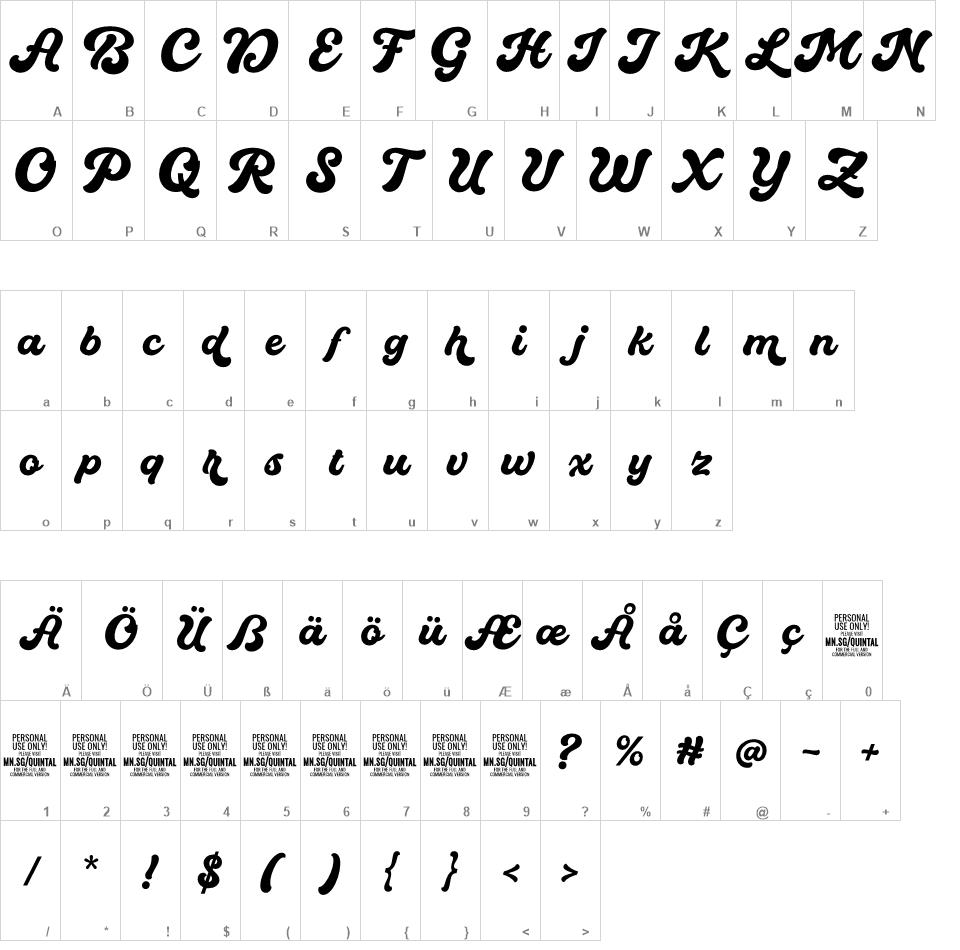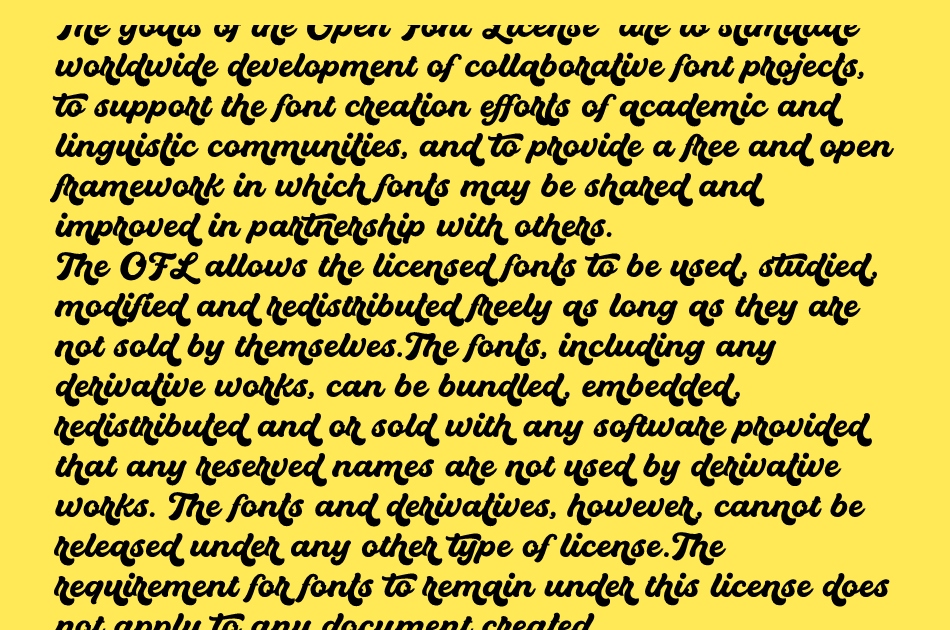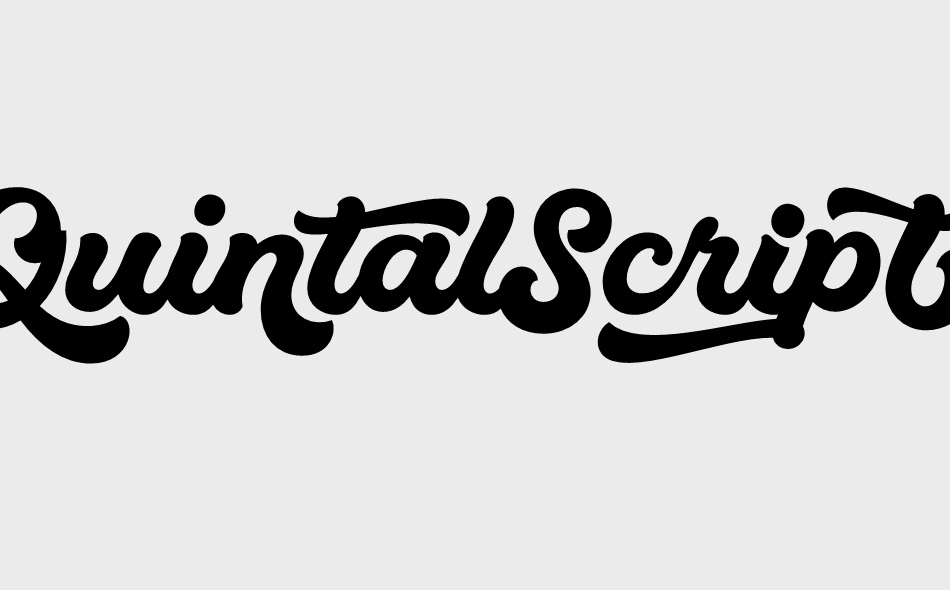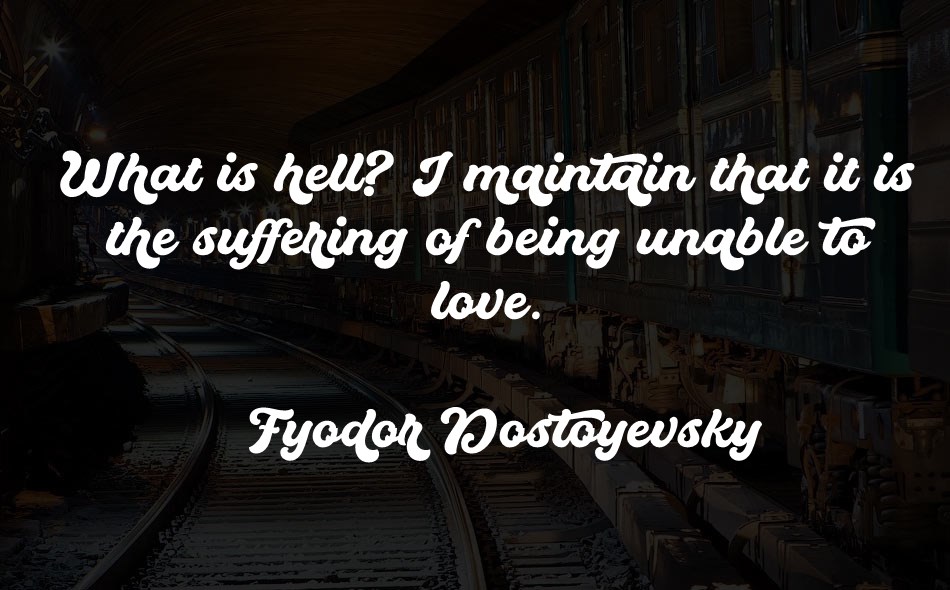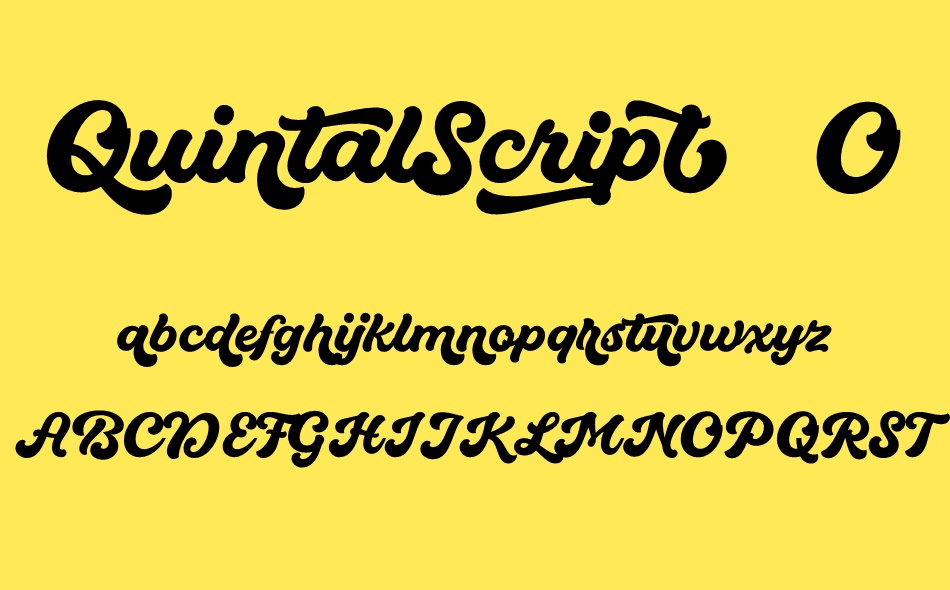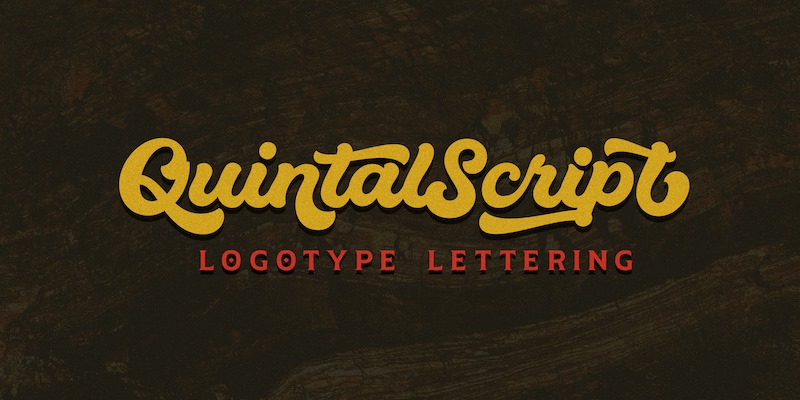
Quintal Script font
Use underscore _ for a beautiful swash.
Example: Quintal_
Use multiple underscores for different swashes.
Example: Hand____
Quintal Script is a cool, bold brush typeface.
Drawn and created by Mans Greback & Sarwo Edi during the years 2019-2021, this flowing lettering has a wavy style and a vivid personality.
Perfect for a product or company logo, a poster or any artistry; this typographic masterpiece is sure to bring character to your brand.
Use underscore _ for a beautiful swash. Example: Quintal_
Quintal Script includes three different styles. In addition to the Regular weight, it also comes as Thin as well as Bold, giving the type an extra dimension of versatility.
The font is built with advanced OpenType functionality and has a guaranteed top-notch quality, containing stylistic and contextual alternates, ligatures and more features; all to give you full control and customizability. It has extensive lingual support, covering all Latin-based languages, from North Europe to South Africa, from America to South-East Asia. It contains all characters and symbols you'll ever need, including all punctuation and numbers.